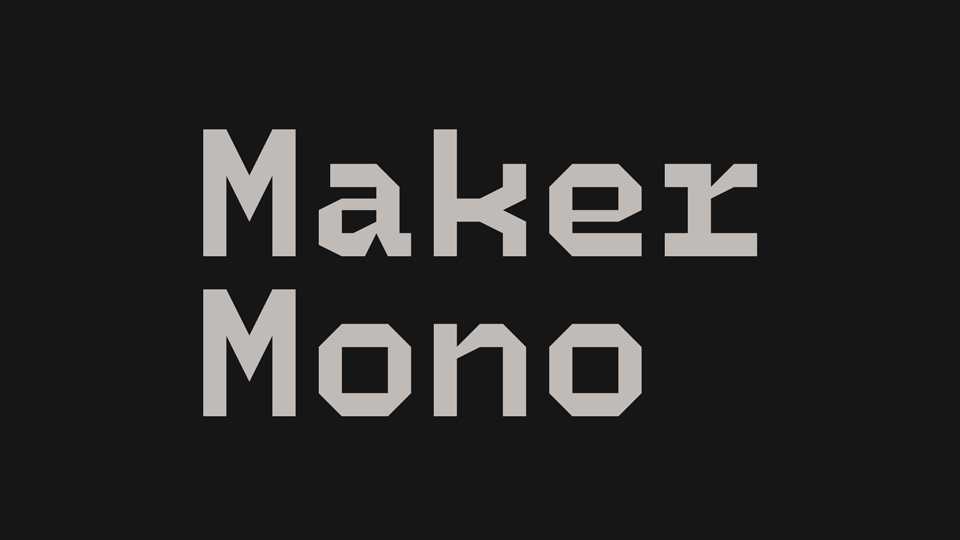
Download Maker Mono font, a monospaced geometric typeface for coding. With its blocky design the font is also perfect for projects relating to the tech industry, the gaming world, web and interfaces.
Designer: frongile